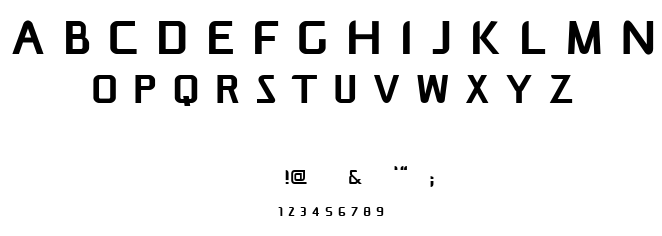
Mitigate is a font with modern proportions, ideal for titrations and versatile signage and branding. Solidity, harmony and functionality come together in an overall balance, becoming the guidelines of building